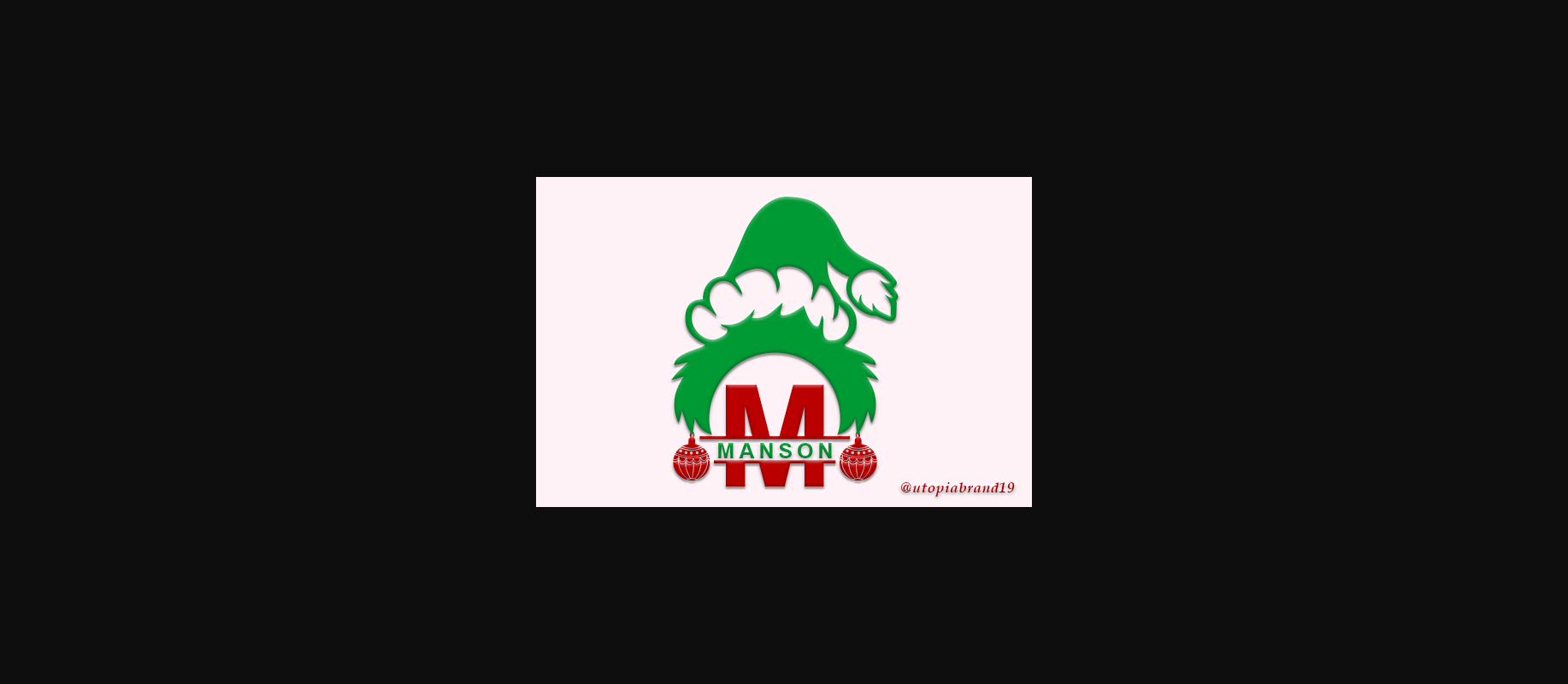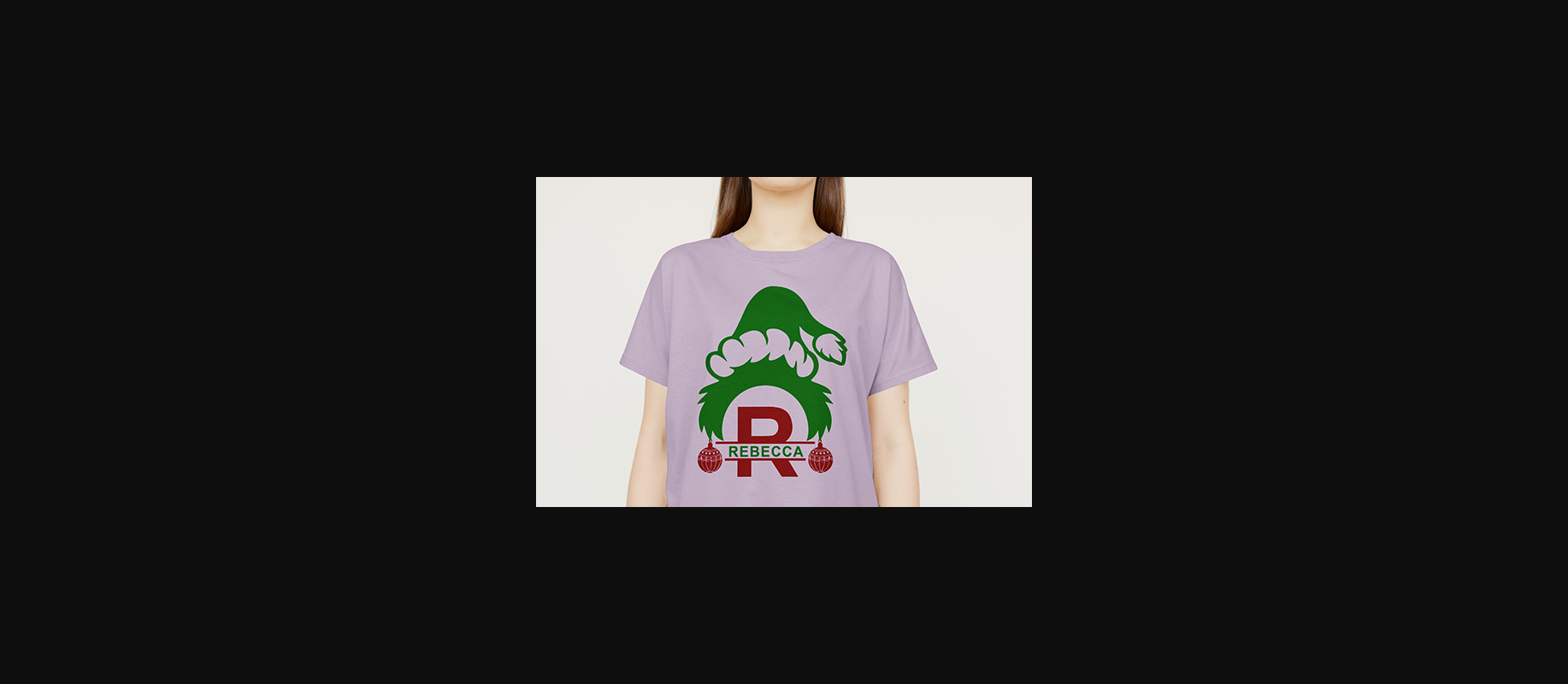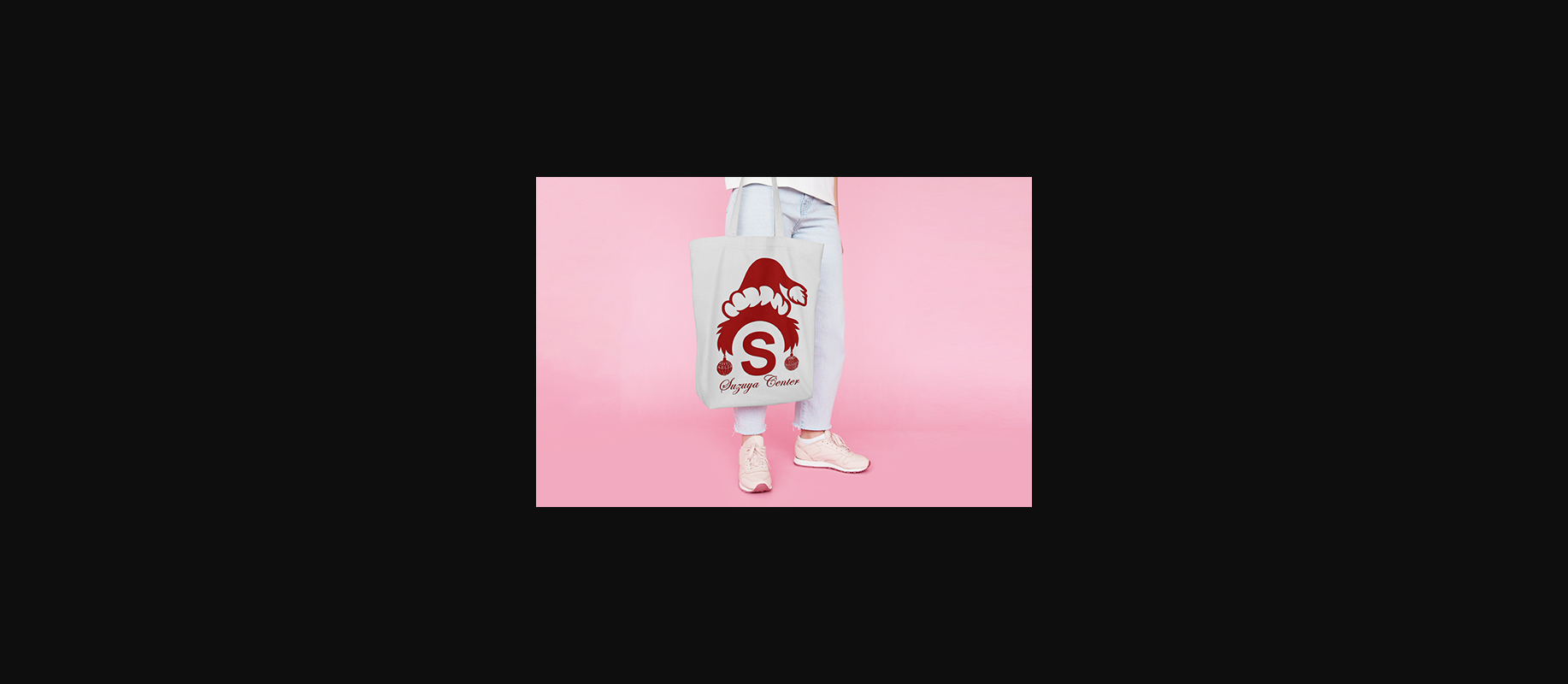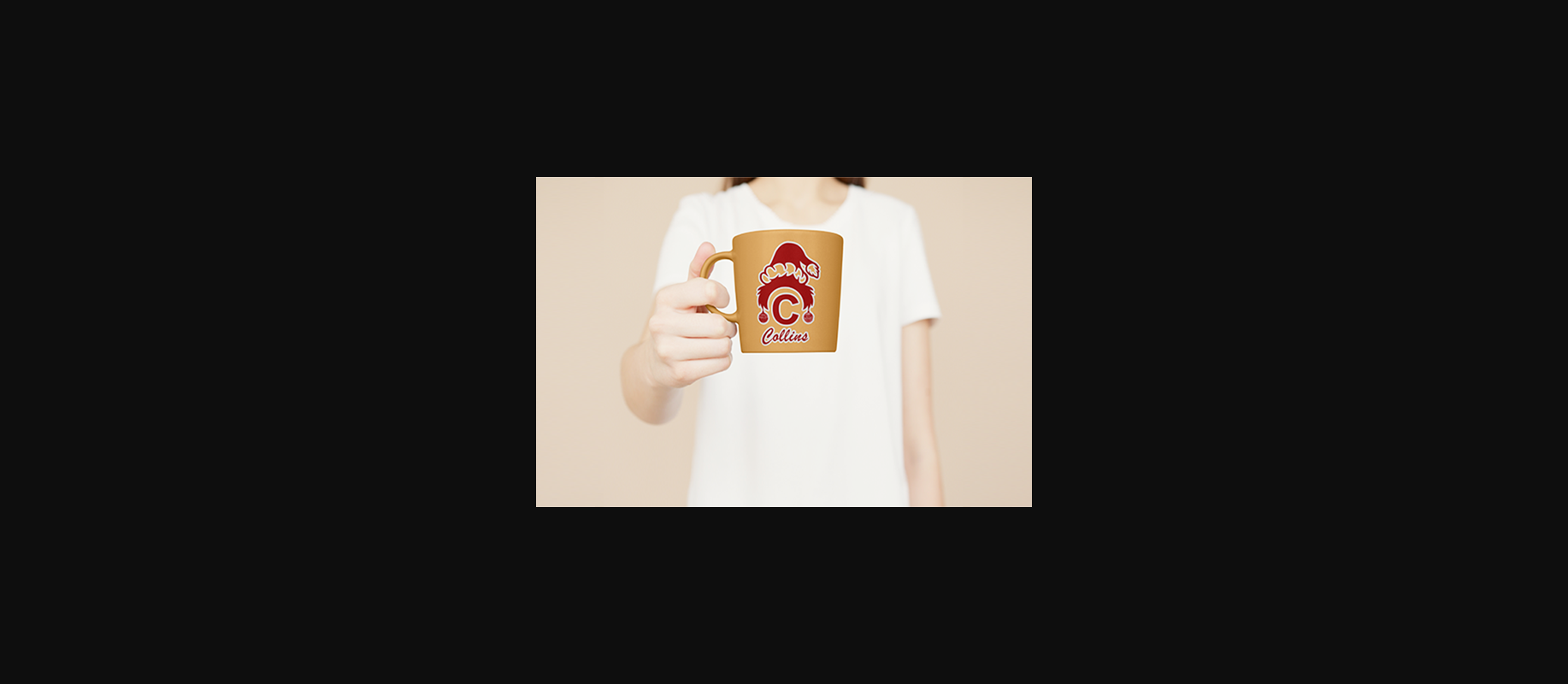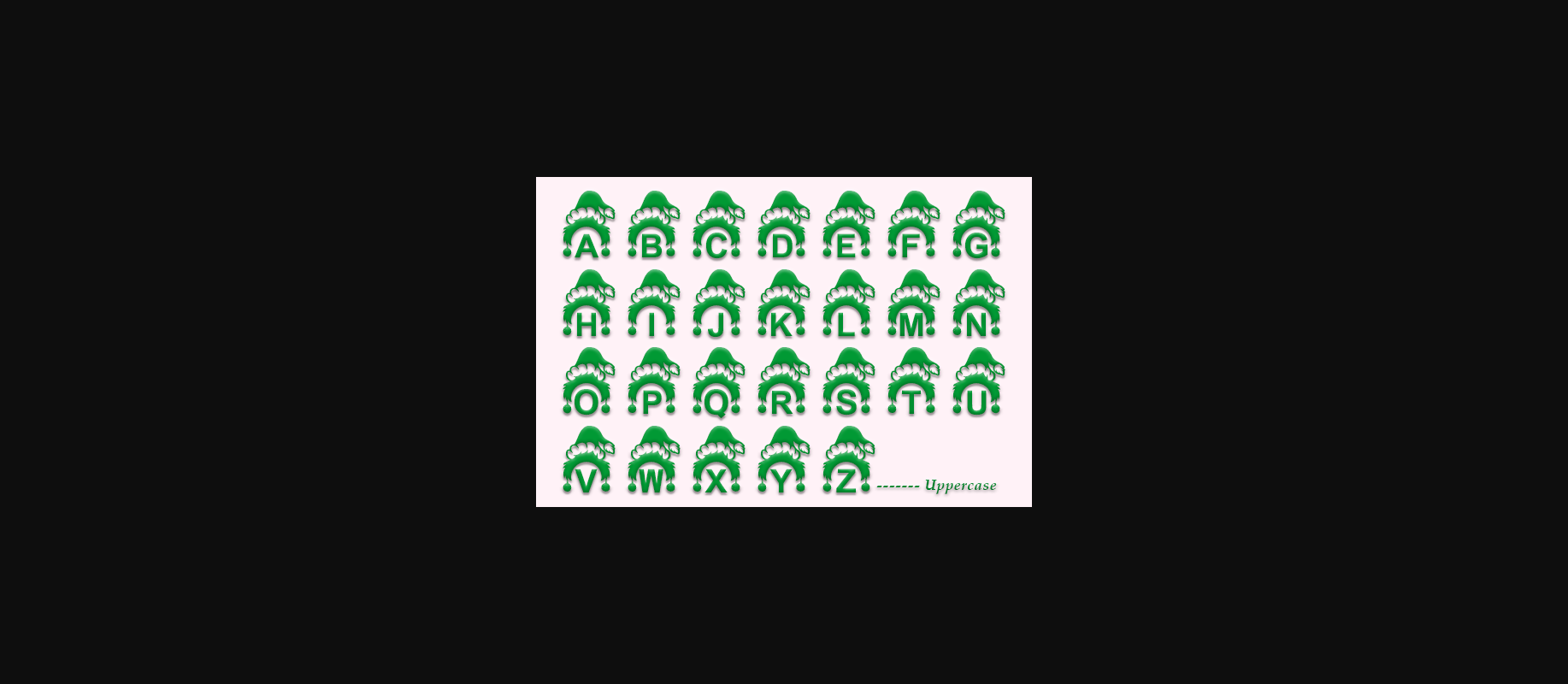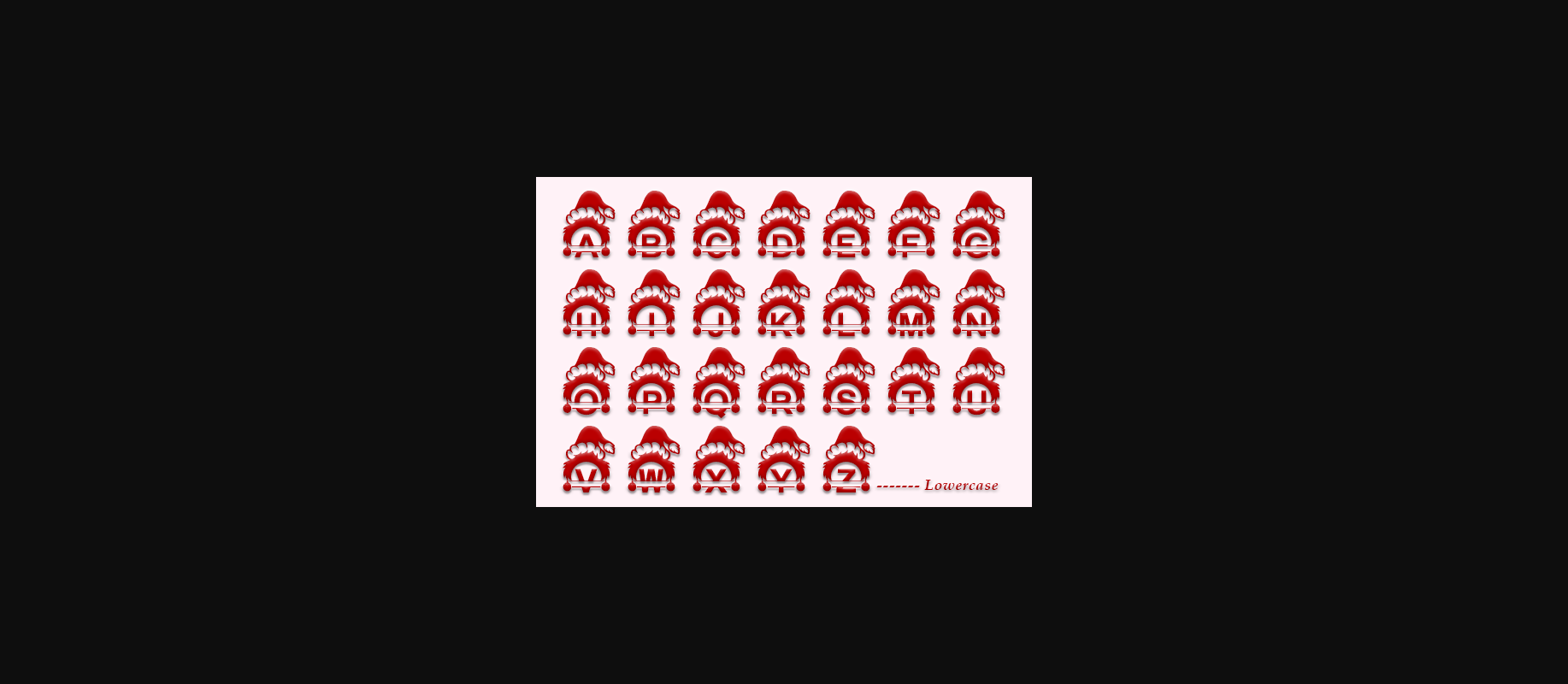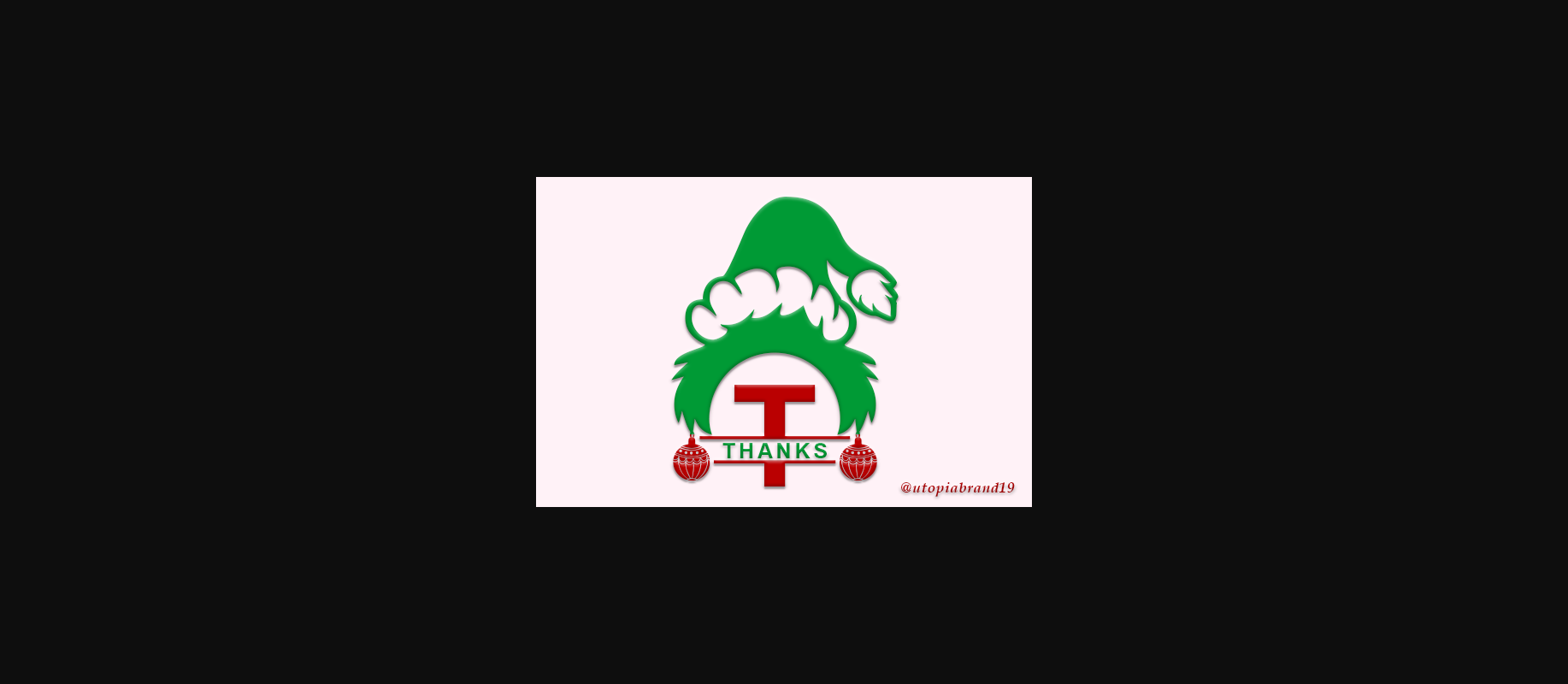
Manson Monogram Font
About Manson Monogram Font
Manson Monogram is a dainty and festive decorative font. Add this warm and lovely looking font to each of your winter letters, invitations or favorite design ideas, and you will be astounded by the outcome.